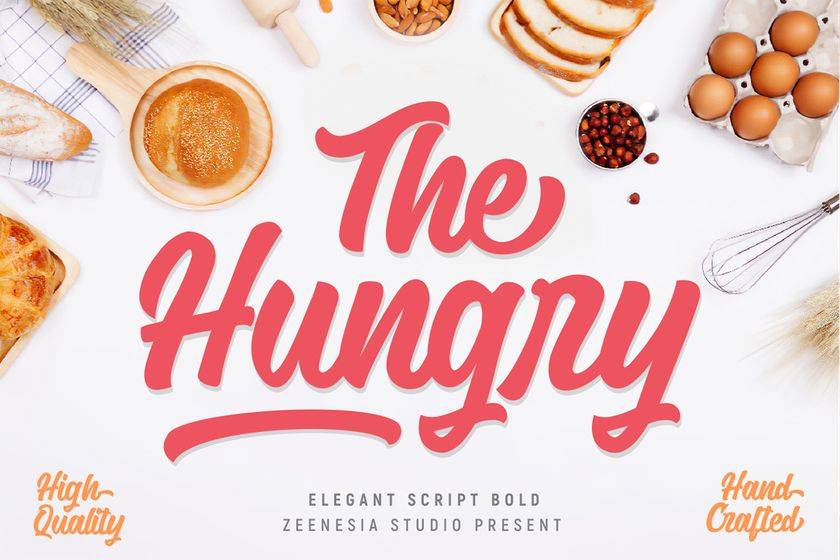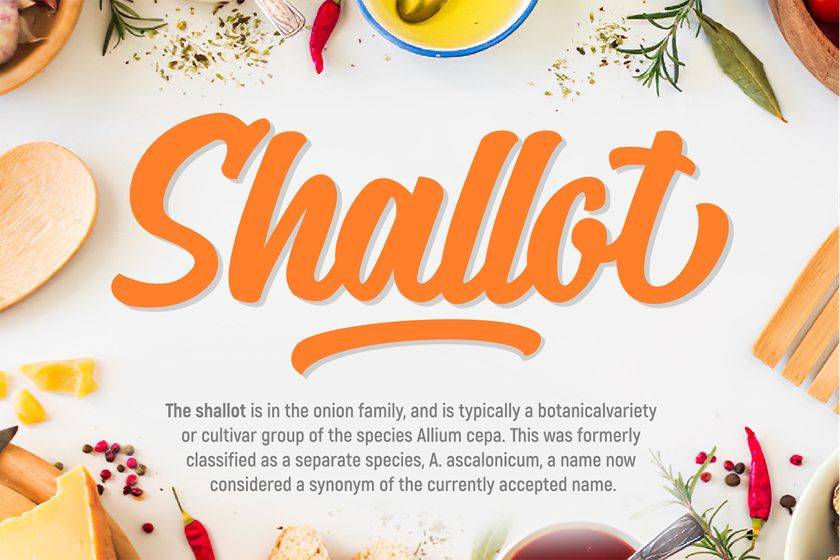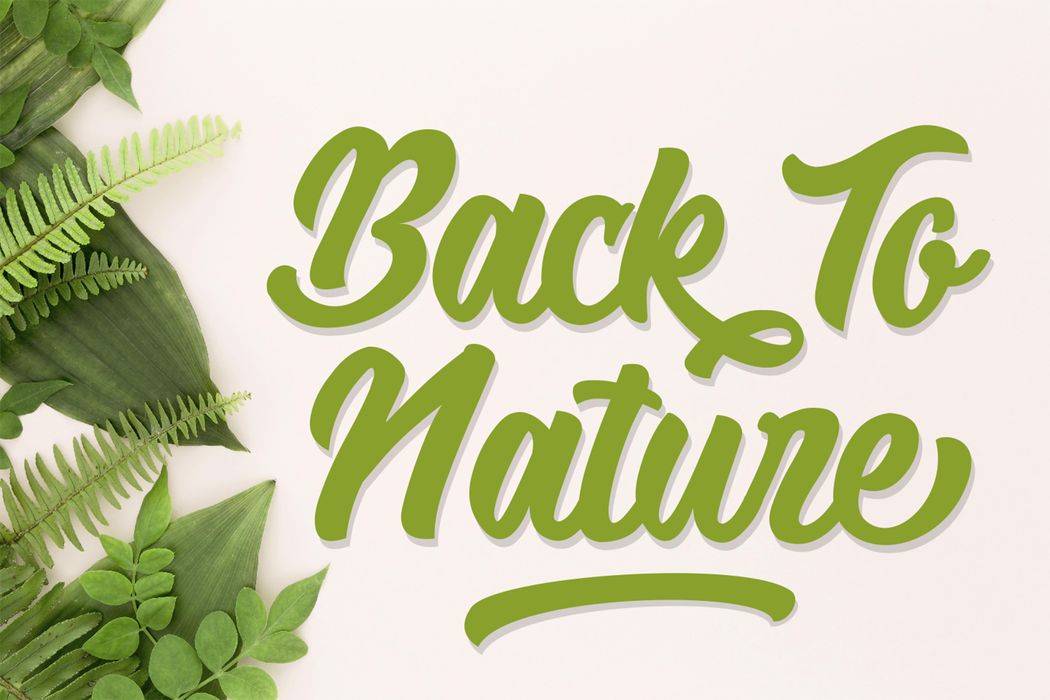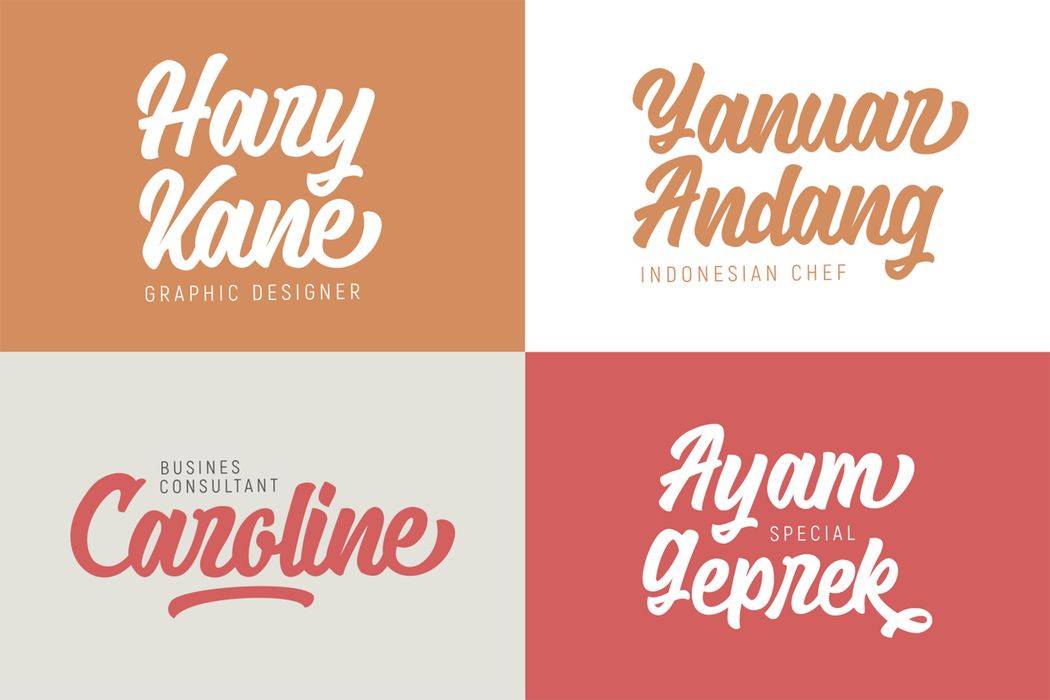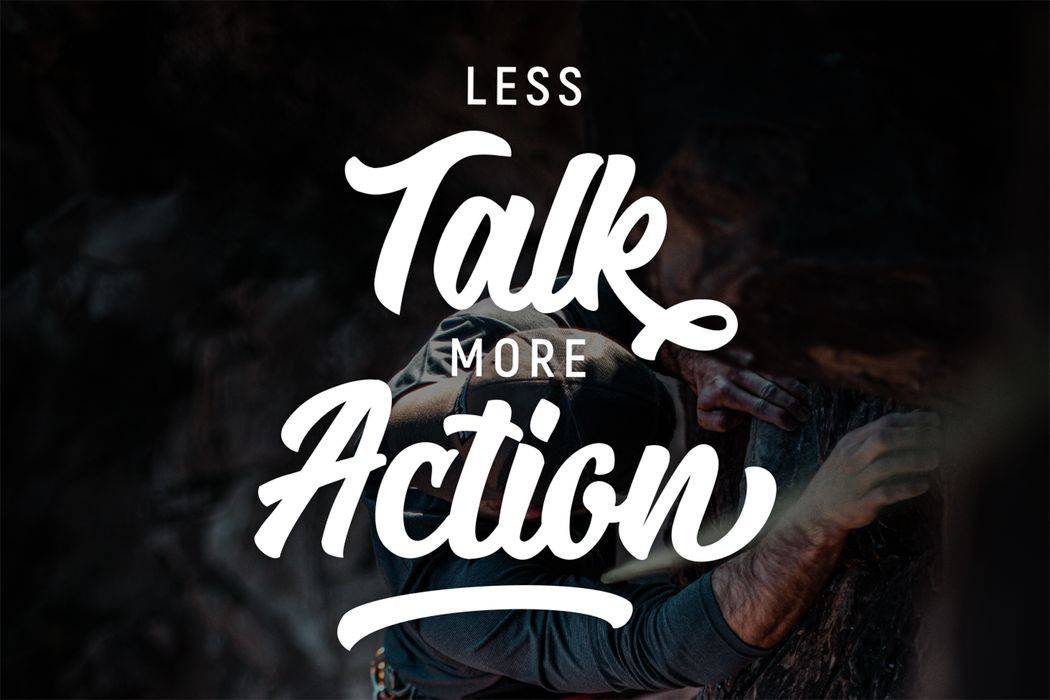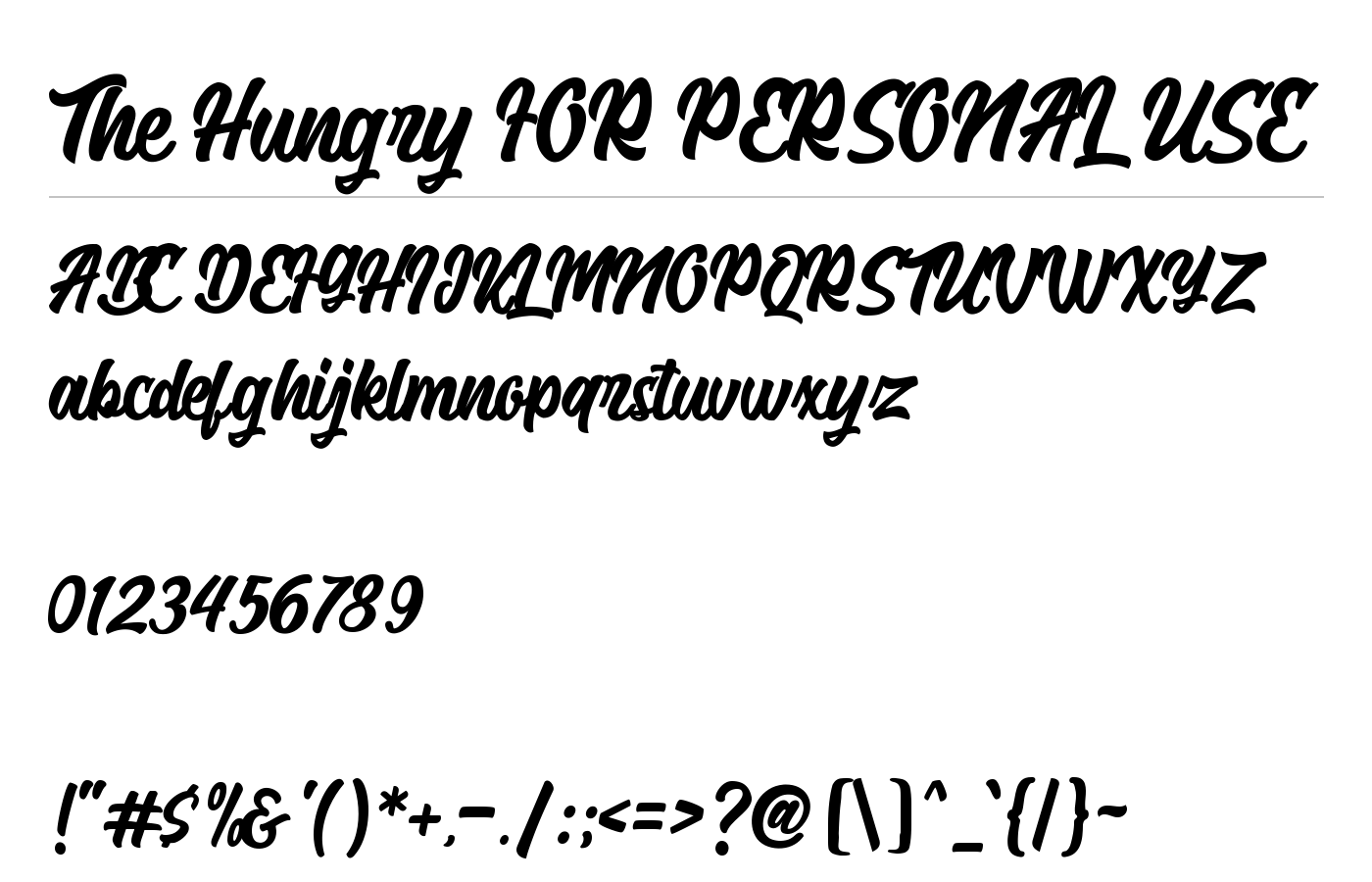
The Hungry Font is a lively and bold script typeface with a casual, handwritten feel. Its smooth, thick strokes and slightly condensed letterforms give it an energetic and approachable personality, making it perfect for branding, packaging, and editorial projects that seek a friendly and dynamic vibe. This font works especially well in headlines and logos where a personal, creative touch is desired.
The Hungry Font
About The Hungry Font
| Font family | The Hungry Font |
| Designer | ZEENESIA 2020 |